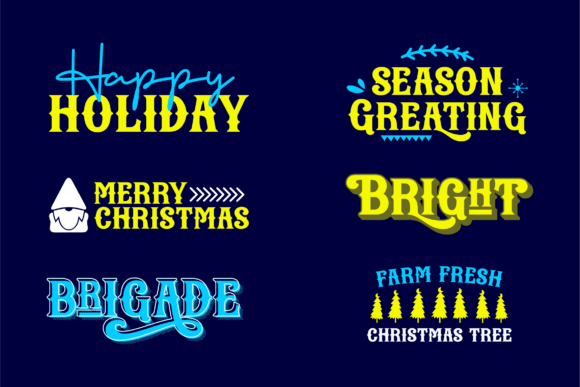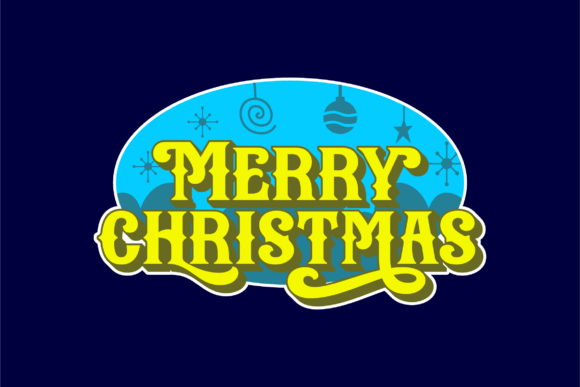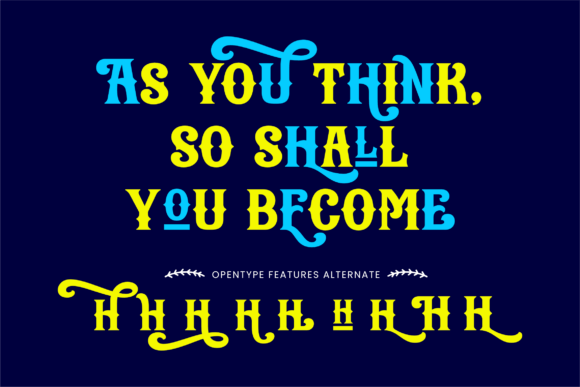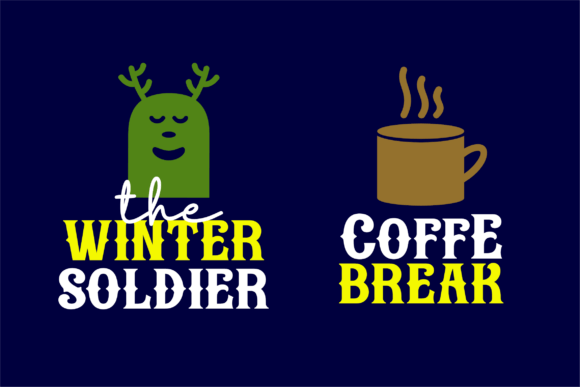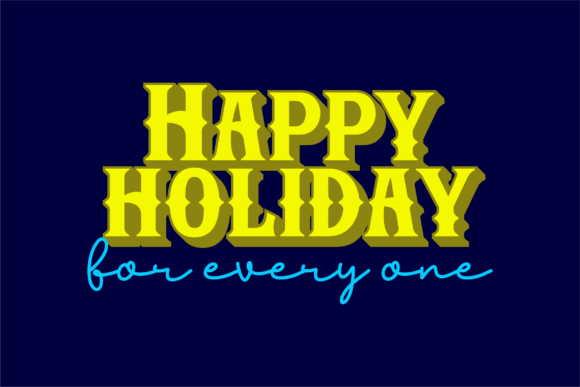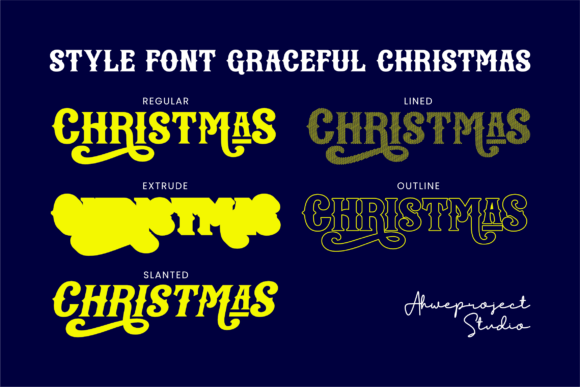
Introducing Graceful Christmas: The Ultimate Festive Font for Holiday Designs
Are you looking for a font that embodies the spirit of Christmas? Do you want to create holiday designs that are both elegant and festive? Look no further than Graceful Christmas, a stunning layered font that’s perfect for capturing the magic of the season. In this article, we’ll explore the features and benefits of this beautiful font, and show you how to make the most of it in your holiday designs.
A Festive and Elegant Font for Holiday Designs
Graceful Christmas is a bold, decorative font that’s specifically designed for holiday designs. Its intricate details and vintage flair make it a standout choice for creating Christmas cards, invitations, posters, and festive branding. The font’s modern layering effects add a touch of sophistication, making it perfect for designers and crafters who want to create high-quality holiday designs.
Key Features of Graceful Christmas
- Layered font**: Graceful Christmas is a layered font, which means you can customize the design to your heart’s content. With multiple layers, you can create unique and intricate designs that are sure to impress.
- Embellishments and dingbats**: The font comes with a range of embellishments and dingbats that add a joyful, seasonal touch to any project. From snowflakes to holly leaves, these extras will help you create designs that are truly festive.
- Vintage flair**: Graceful Christmas has a vintage feel that’s perfect for creating traditional holiday designs. The font’s classic letterforms and ornate details will add a touch of nostalgia to any project.
- Modern layering effects**: The font’s modern layering effects make it easy to create complex, layered designs that are sure to stand out.
Using Graceful Christmas in Your Holiday Designs
Graceful Christmas is a versatile font that’s perfect for a wide range of holiday designs. Here are just a few ideas to get you started:
- Christmas cards**: Create beautiful, one-of-a-kind Christmas cards that will impress your friends and family.
- Invitations**: Design elegant and festive invitations for your holiday party or special event.
- Posters**: Create eye-catching posters that showcase your holiday designs.
- Festive branding**: Use Graceful Christmas to create a cohesive brand identity for your holiday products or services.
Tips and Tricks for Getting the Most Out of Graceful Christmas
Here are a few tips and tricks to help you get the most out of Graceful Christmas:
- Experiment with layering**: Don’t be afraid to experiment with the font’s layering effects. Try combining different layers to create unique and intricate designs.
- Use the embellishments and dingbats**: The font’s embellishments and dingbats are designed to add a festive touch to your designs. Use them to create designs that are truly special.
- Pair with other fonts**: Graceful Christmas looks great when paired with other fonts. Try combining it with a simple sans-serif font for a striking contrast.
- Font type: Layered font
- Style: Bold, decorative, elegant, festive